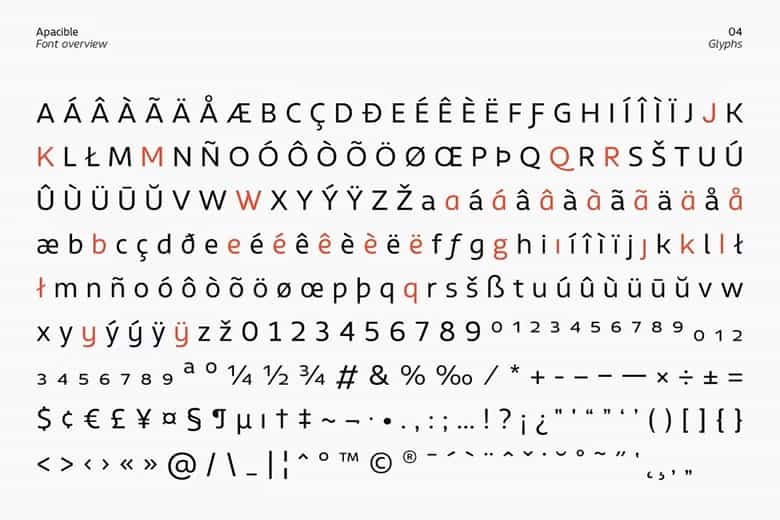
Apacible is a modern geometric sans-serif typeface family that can be used for various projects because of its clean and contemporary look. With 9 standard and 9 italic styles this font can be used for headlines and branding, printing, editorial and informative design, as well as for web and user interface design.